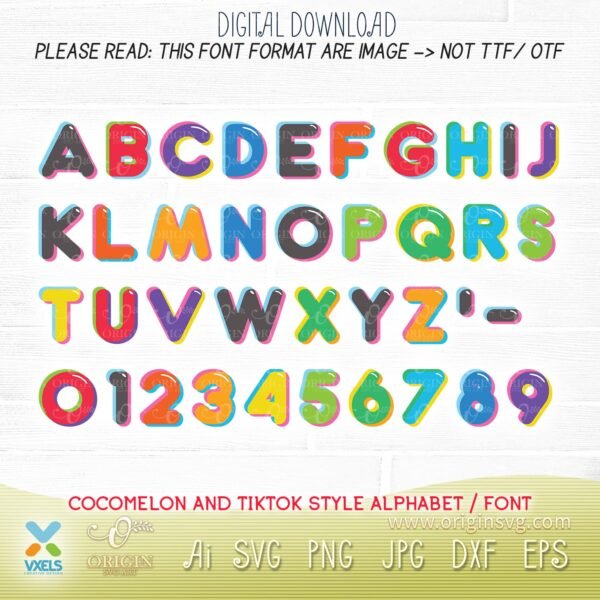
Cocomelon TikTok SVG Alphabet Fonts Vector Graphic for Kid Name Tag and Birthday Custom Image. Great for Cricut file, vinyl decal file for silhouette cameo.  This cocomelon tik tok alphabet svg theme cut file are compatible for Cricut cut file, Illustrator, DXF, EPS PNG and Jpeg Image.  All image cutting clip art is ready to download for kids name tag, card design, t-shirt, mug, pillow, art and craft, or other artworks. Printable Wall Decor, Printable Sign, Wall Sign, Commercial Use, File Download, SVG PNG.